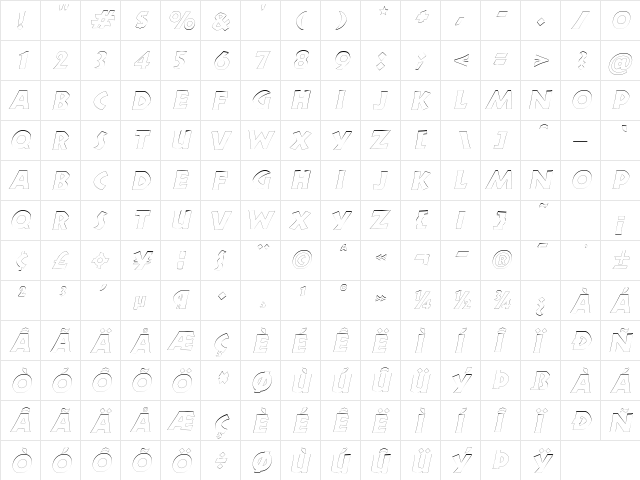
ZorbaOutline Italic
Design Context for ZorbaOutline Typeface
ZorbaOutline is built around its visual character rather than neutral utility — its distinctive forms are designed to make an impression at display sizes. Its italic angle brings a sense of urgency and motion to the letterforms.
Font Pairing: Pair with a clean neutral sans-serif for body copy to let ZorbaOutline's character lead without overwhelming the composition.
Pro Tip: Use ZorbaOutline exclusively at display sizes — it was designed to be seen, not read at length. Let a neutral companion handle body copy.